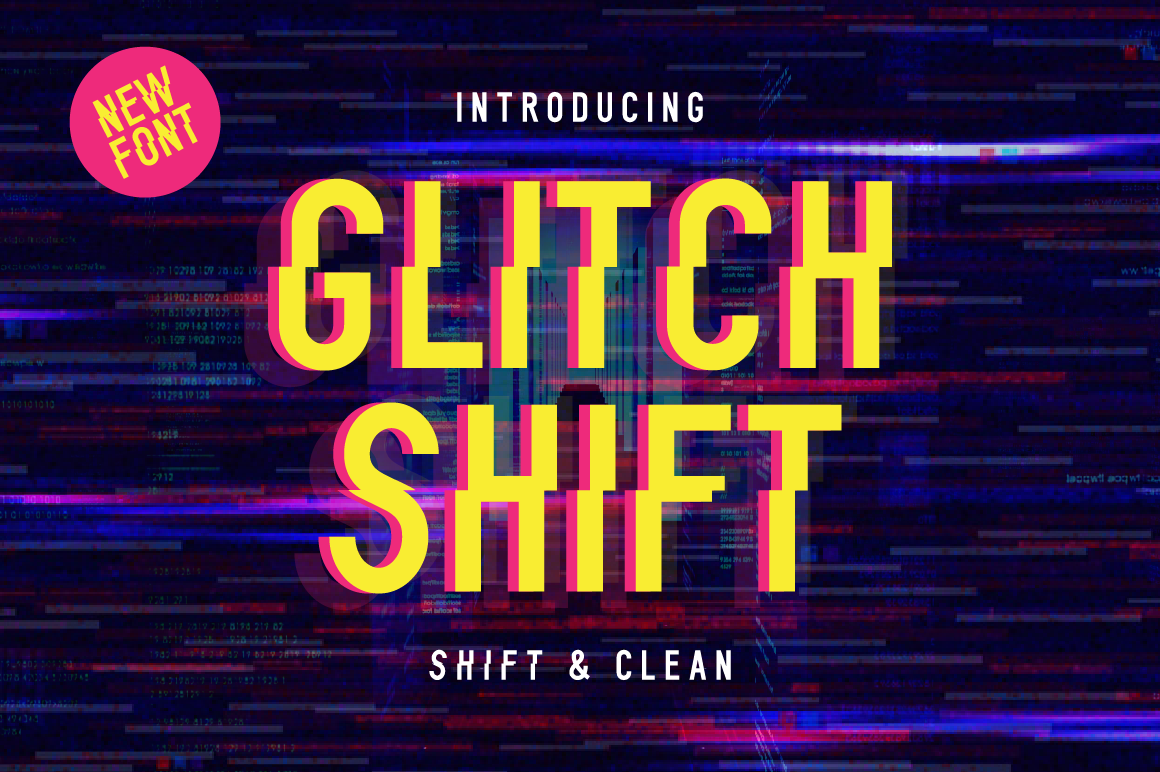
Glitch Shift Font
Glitch Shift is a handcrafted All-Caps distorted font duo giving your words a digital glitch effect without the need for editing. Featuring both Shift and Clean versions so you can control when and where you want the glitch to appear.
Inspired by video games & science fiction movies, Glitch Shift is the perfect way to easily give your projects a glitch text effect.
- All-Caps Character Sets A-Z
- Glitch & Clean versions